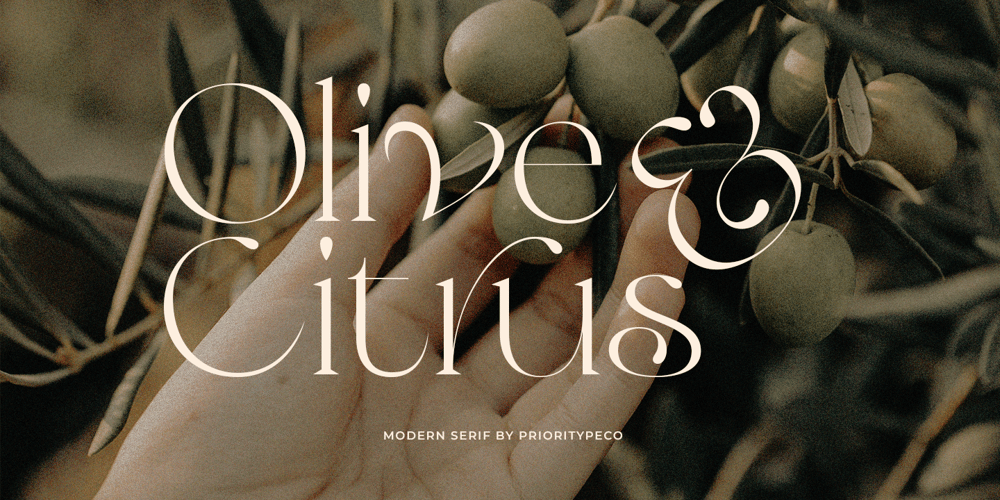
Olive & Citrus Font Family was designed by Prio Nurokhim Aji and published by Prioritype. Olive & Citrus contains 1 styles and family package options. Olive & Citrus is a modern, classic and elegant serif typeface. It is suitable for branding designs, logos, magazines and social media posts. Features: Uppercase, Lowercase, Numeral, Punctuation, Multilingual, Alternates, Ligatures & PUA Encoded. Multilingual contained: Afrikaans, Albanian, Asu, Basque, Bemba, Bena, Breton, Catalan, Chiga, Cornish, Danish, Dutch, English, Estonian, Filipino, Finnish, French, Friulian, Galician, German, Gusii, Indonesian, Irish, Italian, Kabuverdianu, Kalenjin, Kinyarwanda, Luo, Luxembourgish, Luyia, Machame, Makhuwa-Meetto, Makonde, Malagasy, Manx, Morisyen, North Ndebele, Norwegian Bokmål, Norwegian Nynorsk, Nyankole, Oromo, Portuguese, Quechua, Romansh, Rombo, Rundi, Rwa, Samburu, Sango, Sangu, Scottish Gaelic, Sena, Shambala, Shona, Soga, Somali, Spanish, Swahili, Swedish, Swiss German, Taita, Teso, Uzbek (Latin), Volapük, Vunjo, Zulu. Thanks!